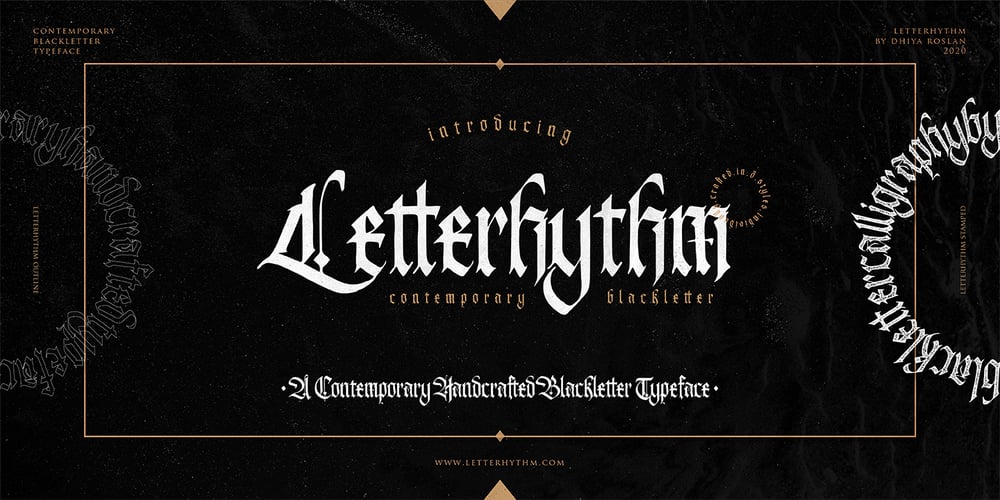
Letterhythm Font Family was designed by Dhiya Roslan and published by Letterhythm Studio. Letterhythm contains 3 styles and family package options. Letterhythm is a modern, contemporary handcrafted blackletter typeface made with experienced by the hand of Dhiya Roslan. The style was influenced by Old School Blackletter Calligraphy Script culture, Fraktur style, and with an extra touch of urban street attitude of Calligraffiti (Calligraphy+Graffiti). The letterform took years of practices to finally made it into digital format. Letterhythm is a very flexible font for almost anything from merchandise, logo, branding, artwork, title, sub-title, body text, tattoo arts, apparels to infinity and beyond. Letterhyhm is a timeless typeface that suits and fit perfectly in any timeframe or style you want. It comes with Multilingual Support for most Latin alphabet’s languages derived with 3 unique font styles that made a total of 220 glyphs each style to complete the typeface including ligatures, alternates and all necessary symbols & punctuations.